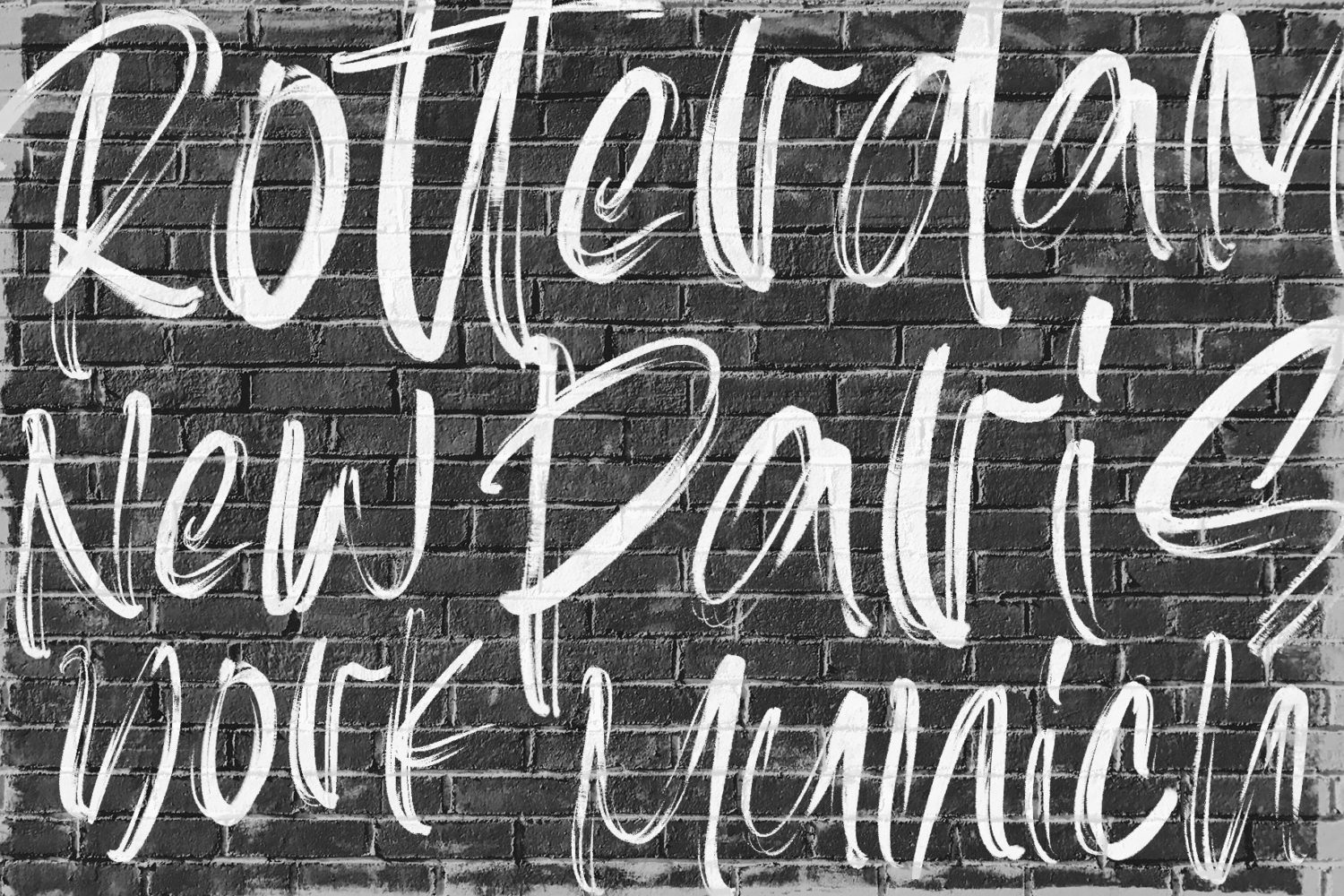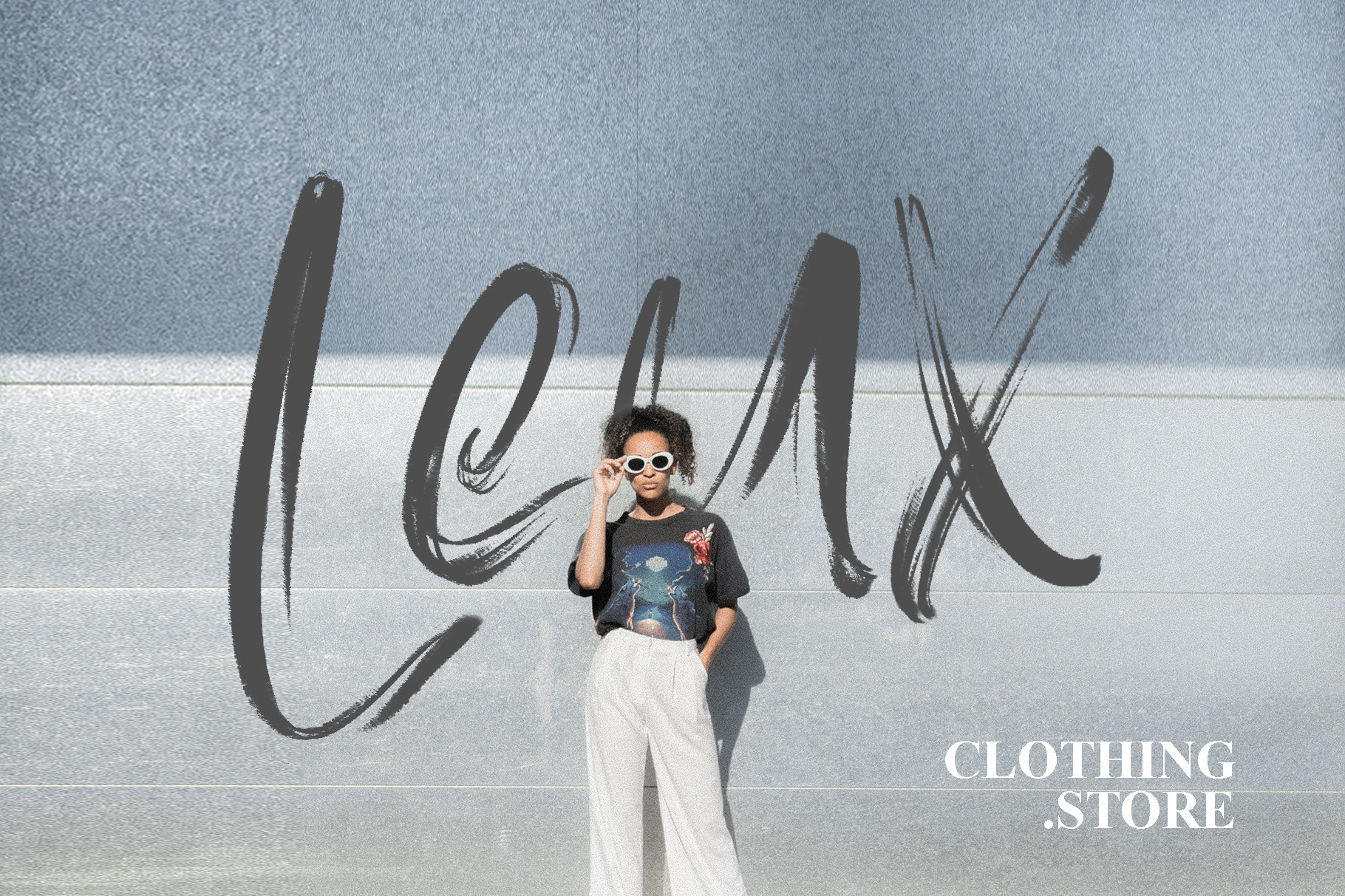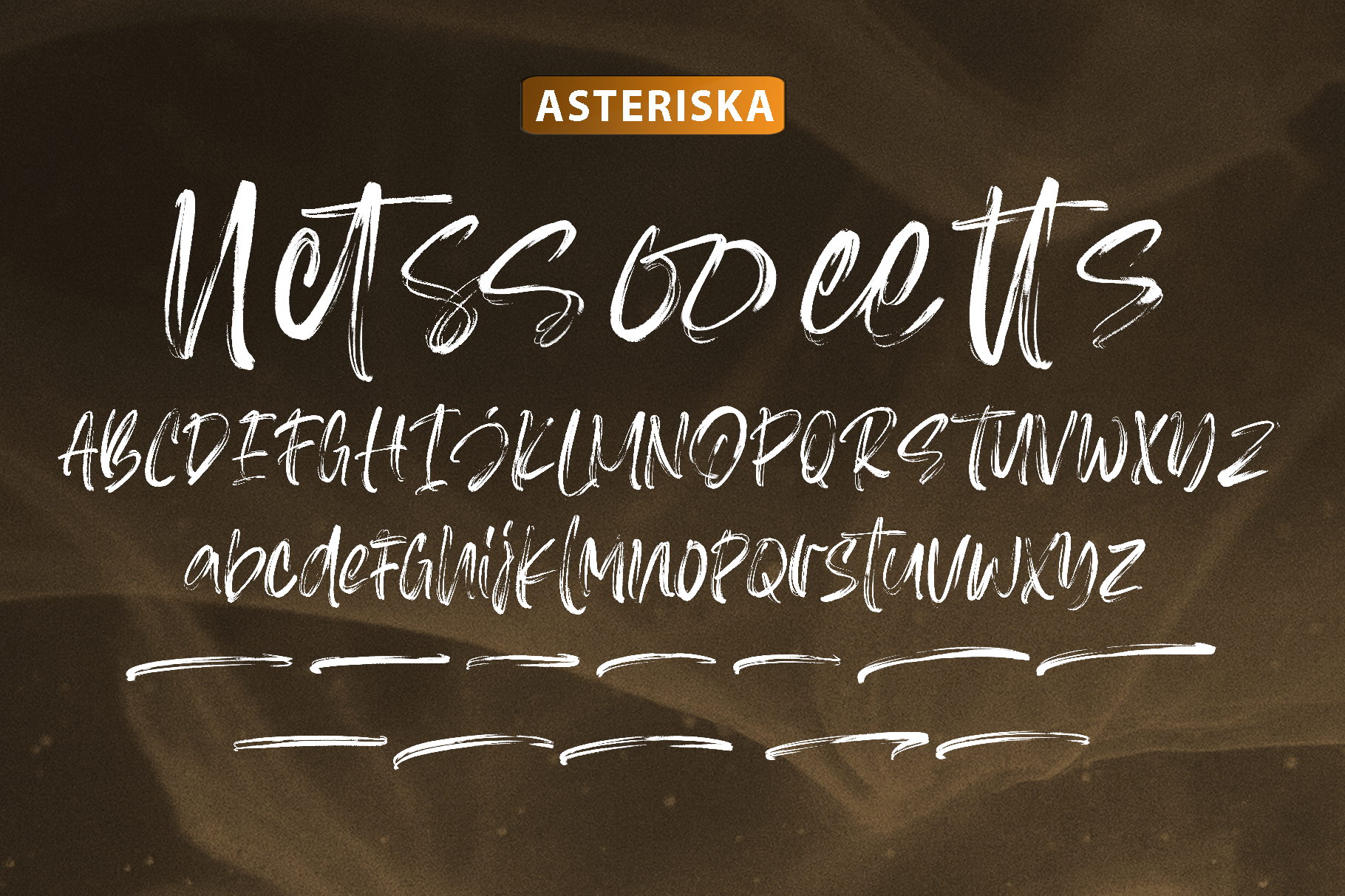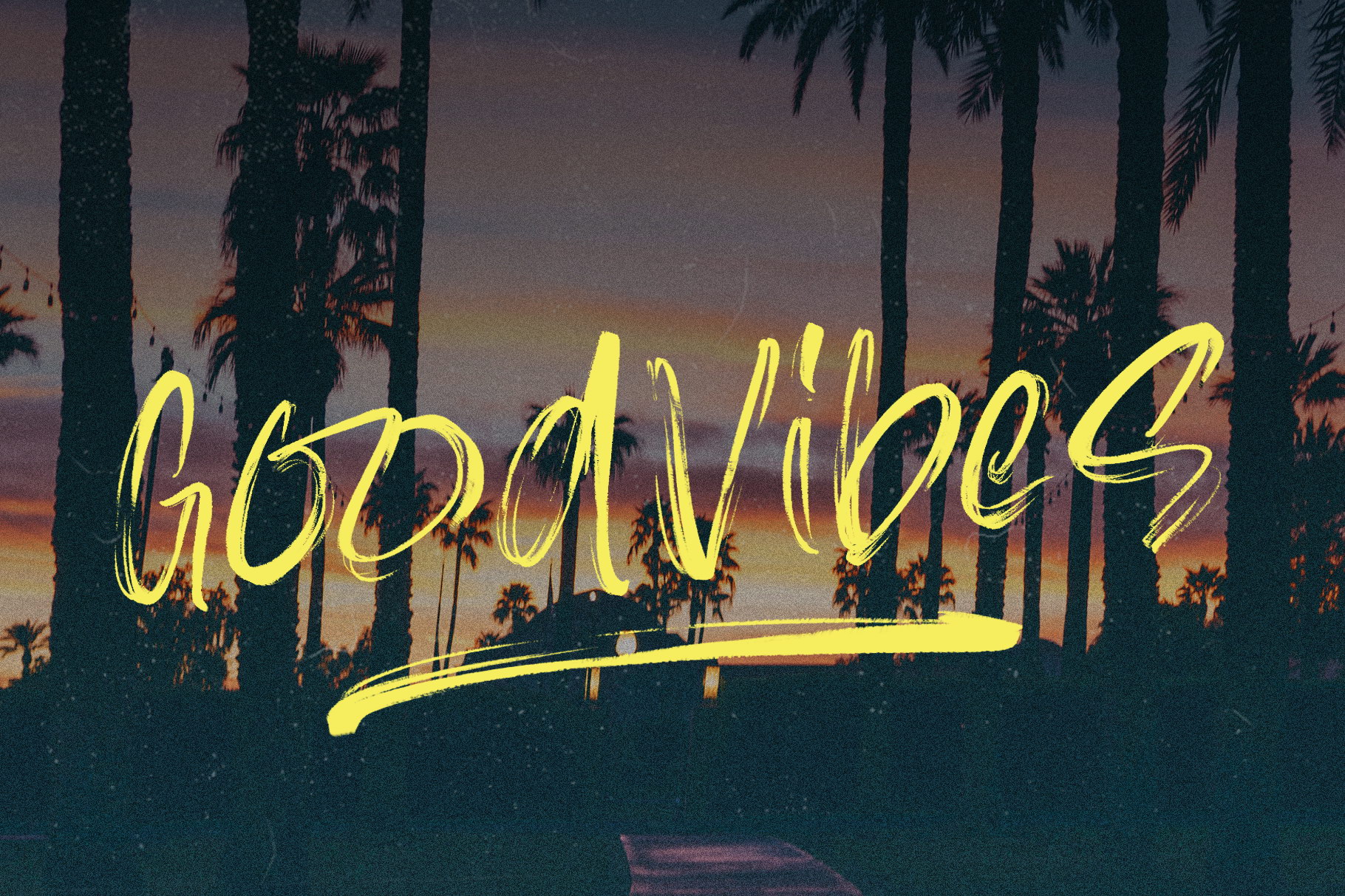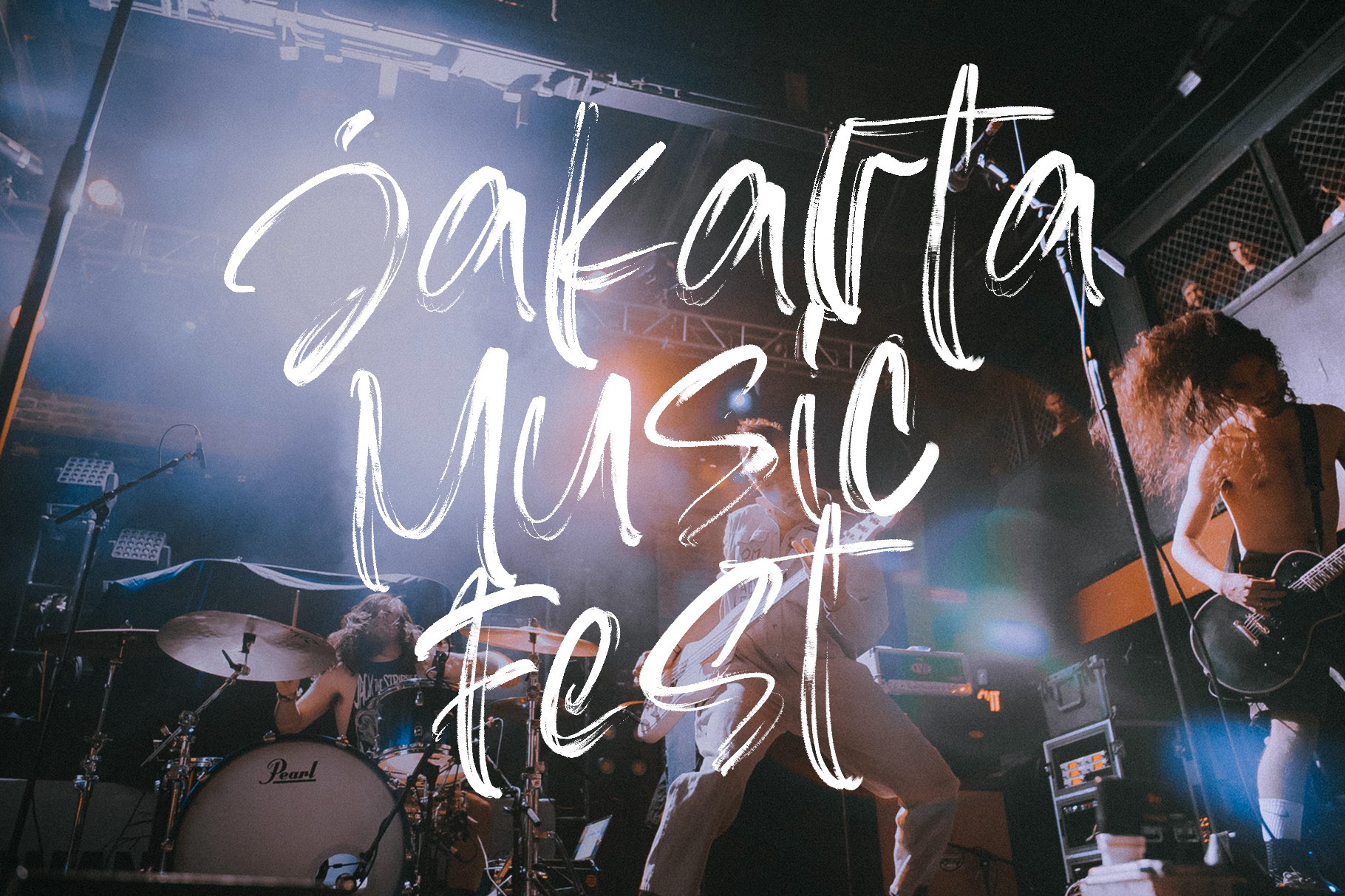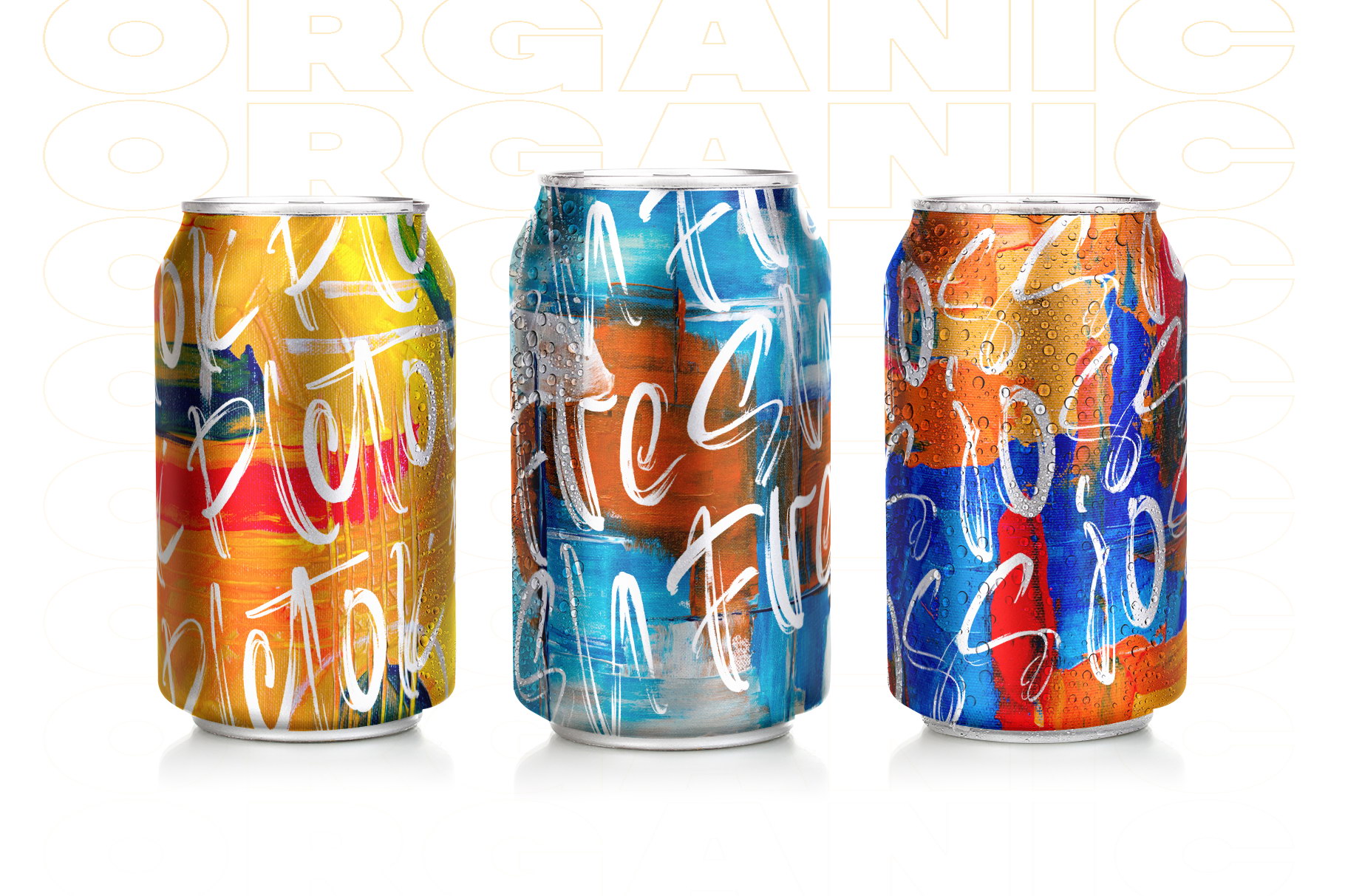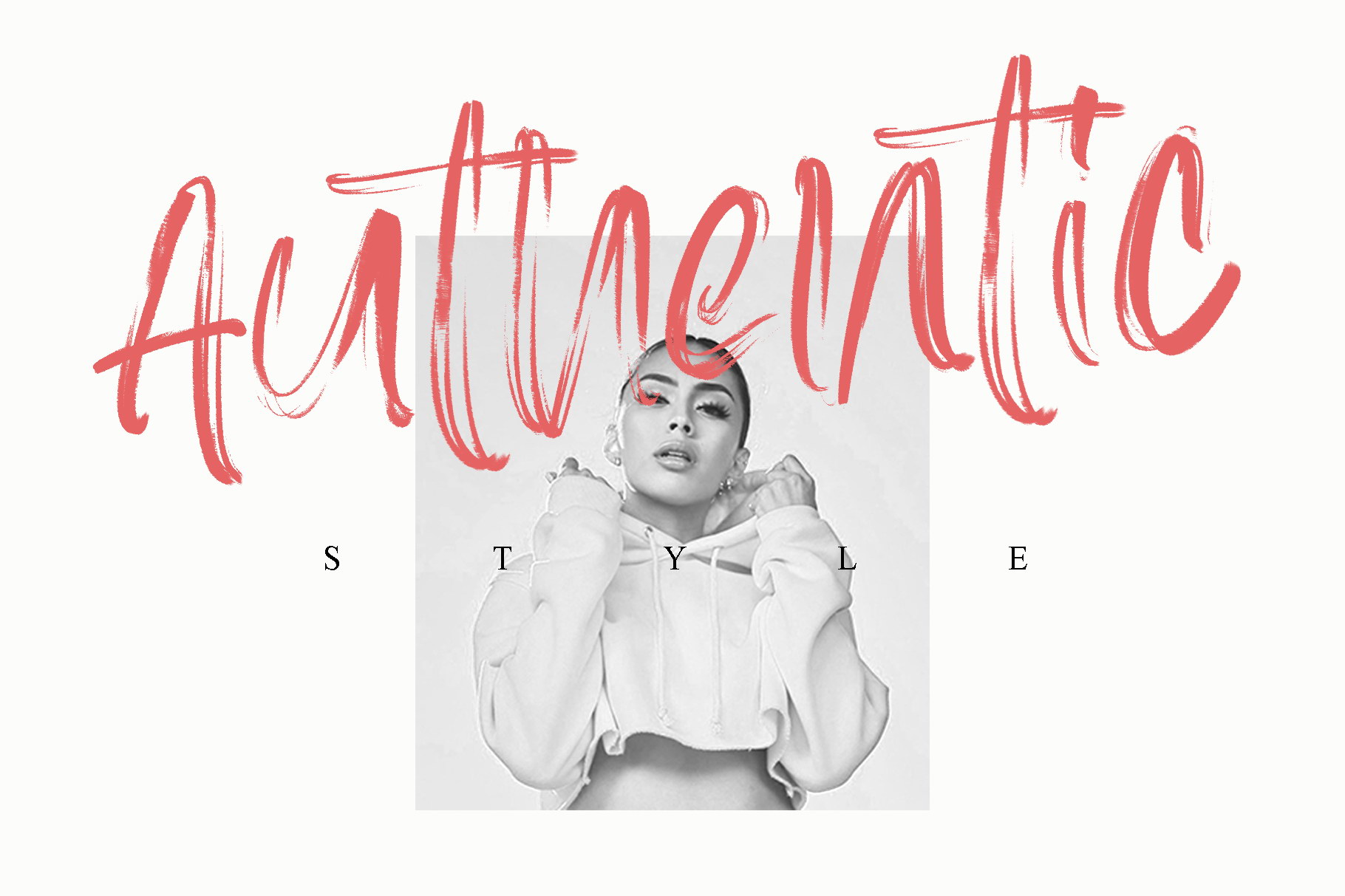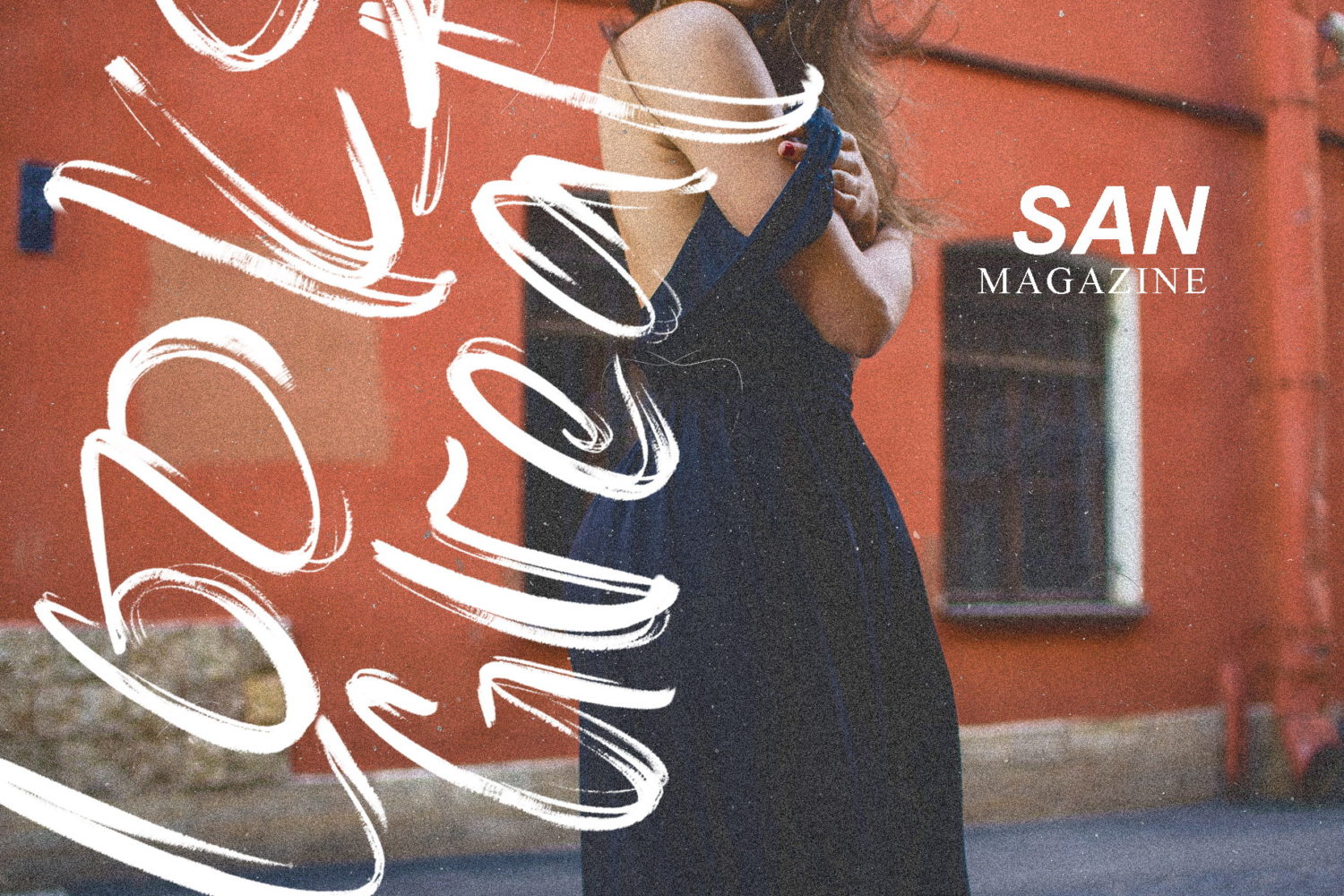
Asteriska Brush is a lively, hand-painted script font with an expressive, textured brushstroke style that feels genuine and artistic. Its tall, upright letterforms feature a mix of bold and delicate strokes, giving it a dynamic, casual personality perfect for creative branding, posters, and invitations where a personal, handcrafted touch is desired. This font works especially well for projects seeking an energetic, informal vibe that stands out with warmth and originality.
Asteriska Brush Font